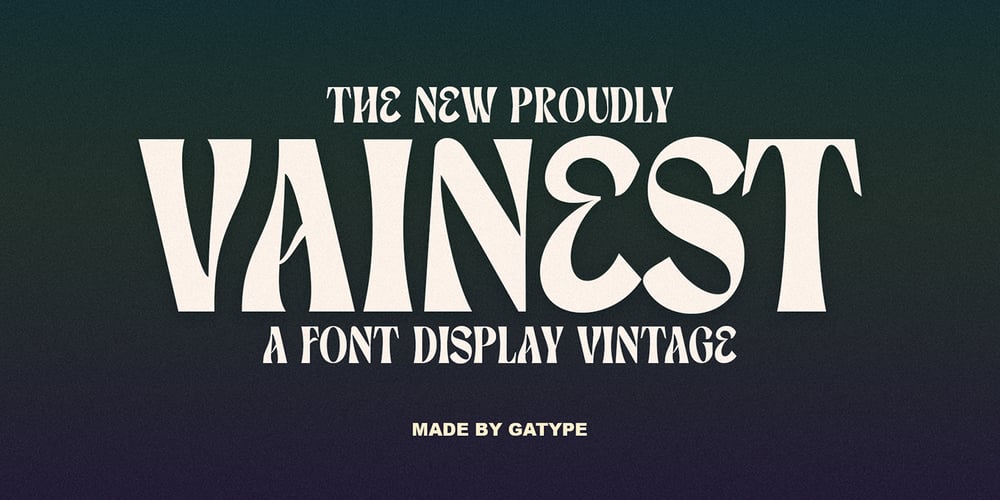
Vainest Font Family was designed by khaidir and published by Gatype. Vainest contains 1 styles and family package options. Vainest Serif vintage style font It has a modern and retro look. Comes with different styles, really helps to create amazing logos, quotes, posts, blog posts. branding projects, magazine imagery, book and billboard displays, and more.hope you will enjoy using the Vainest font and it will make a perfect addition to your font collection! Contact me with an inbox message If you have any questions.Thank you